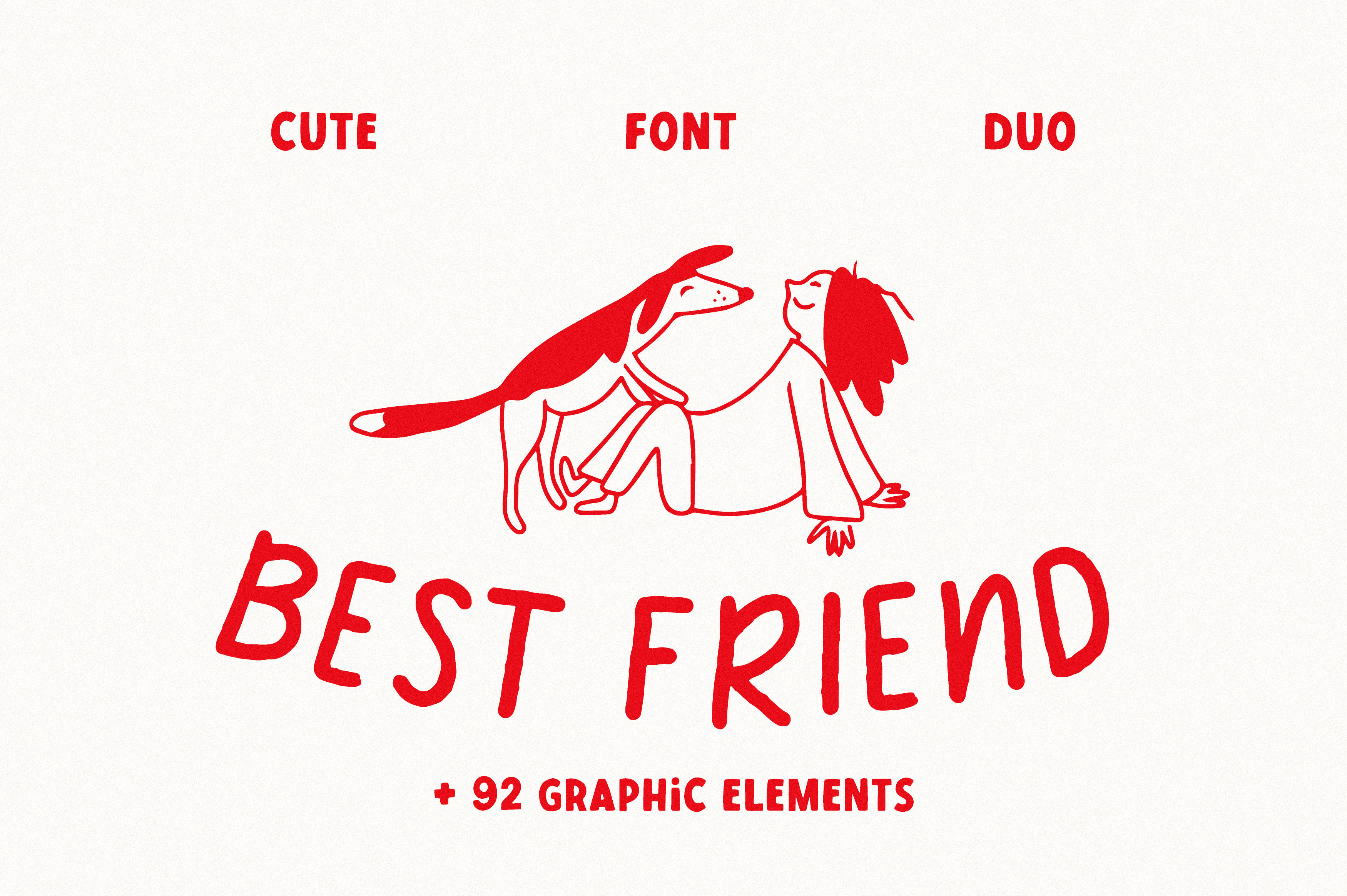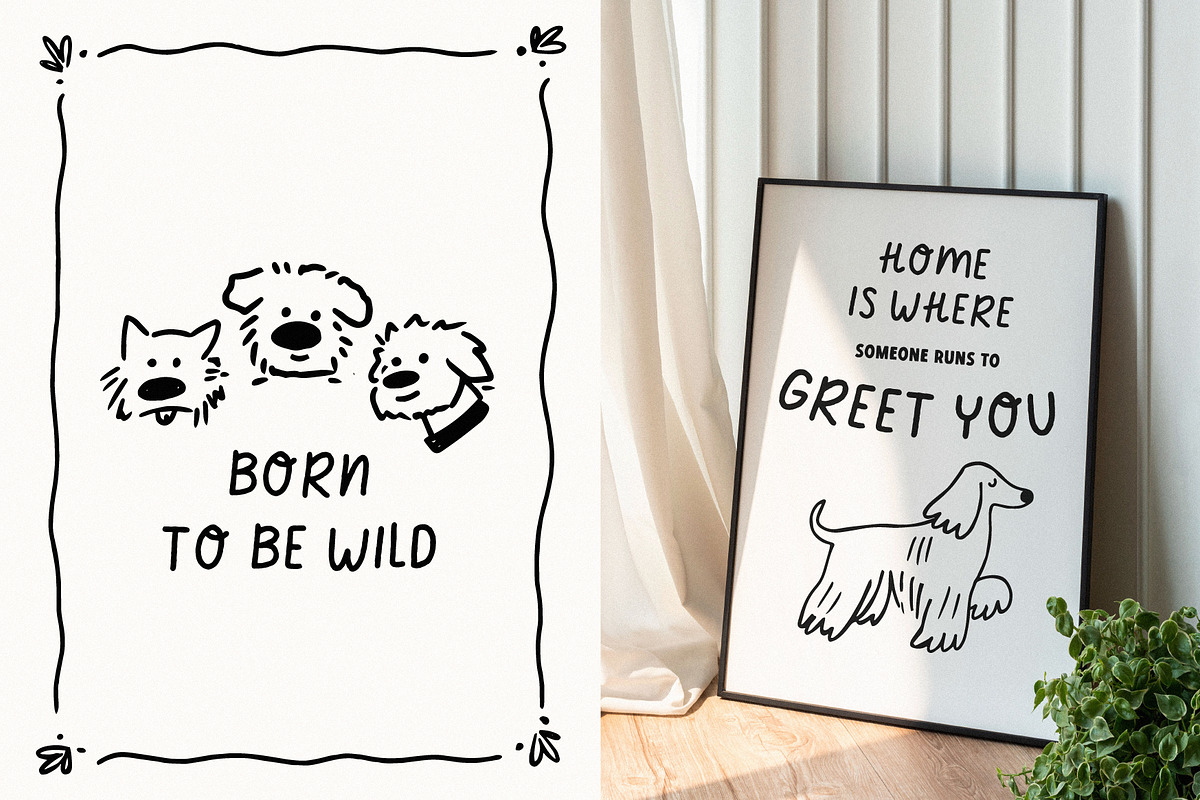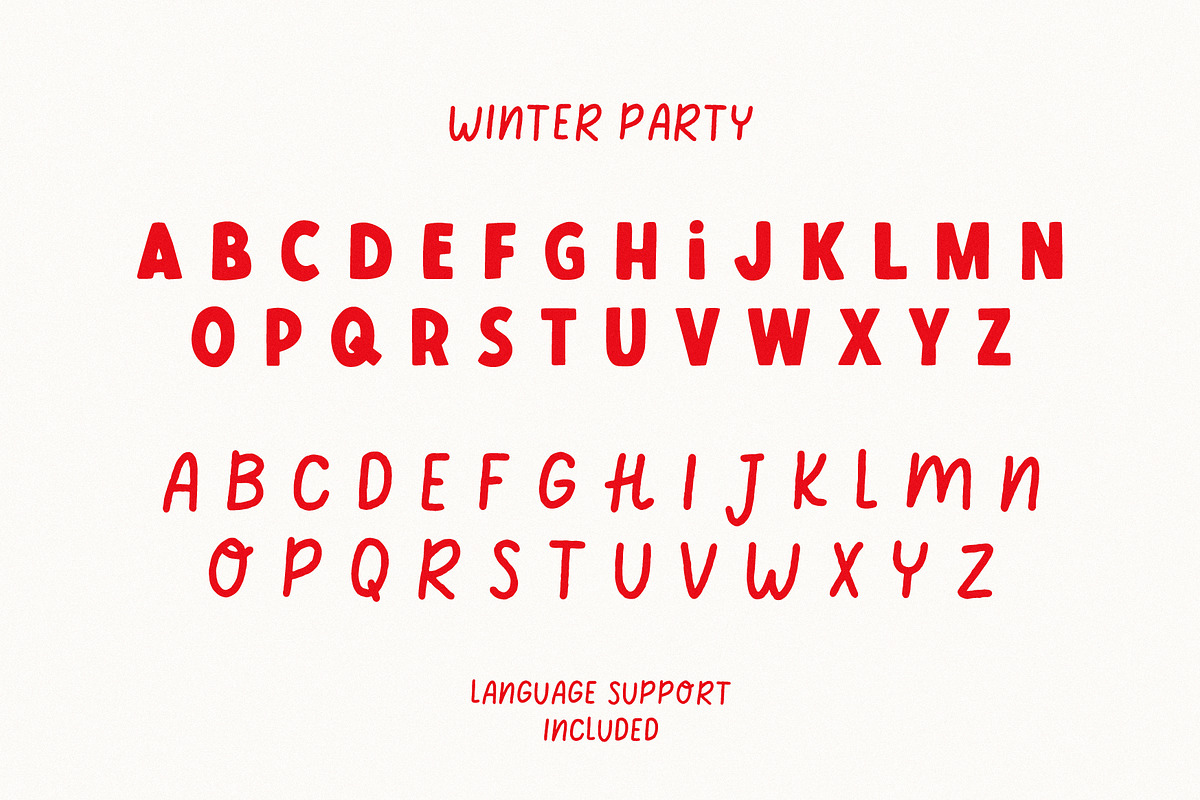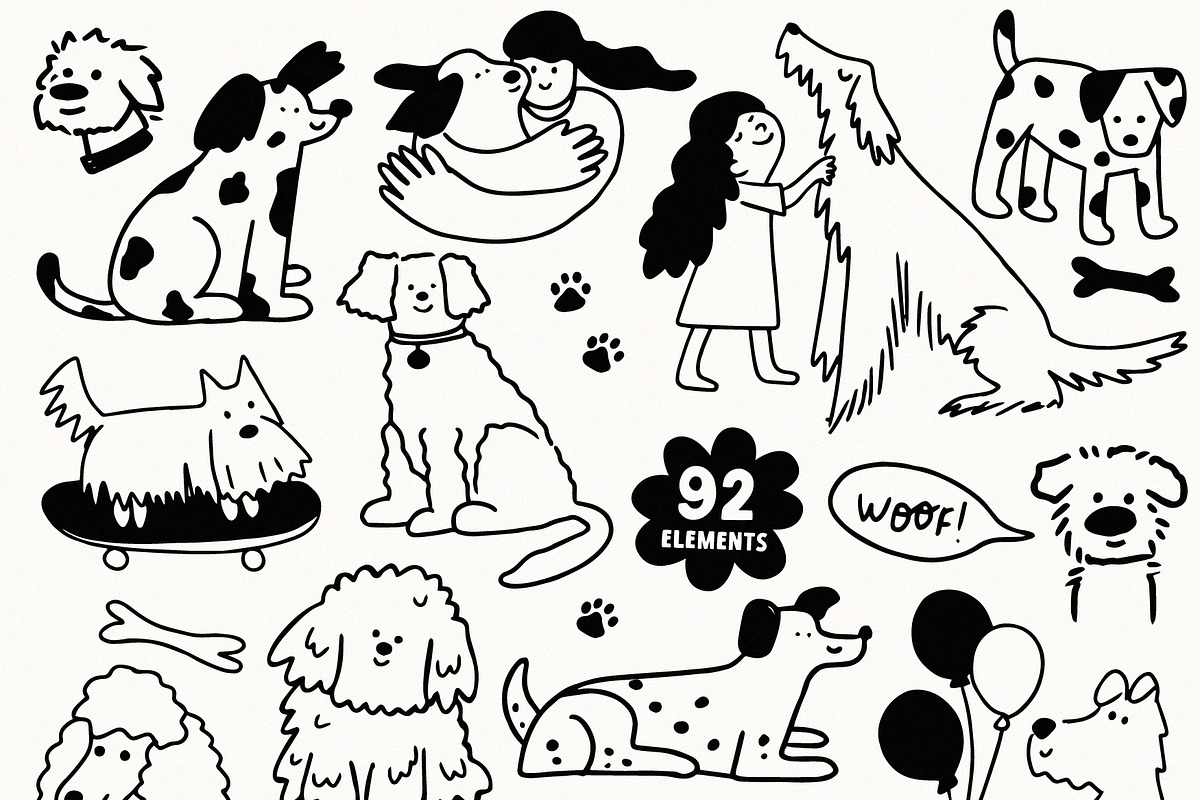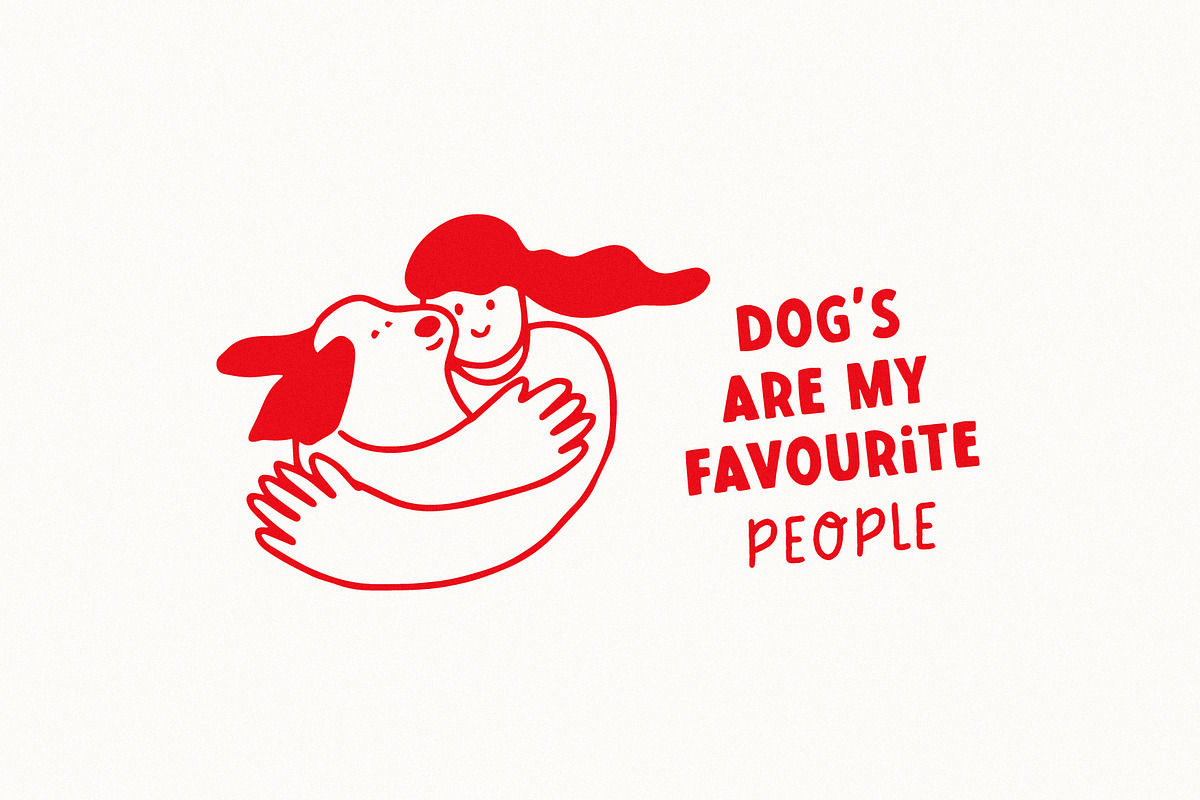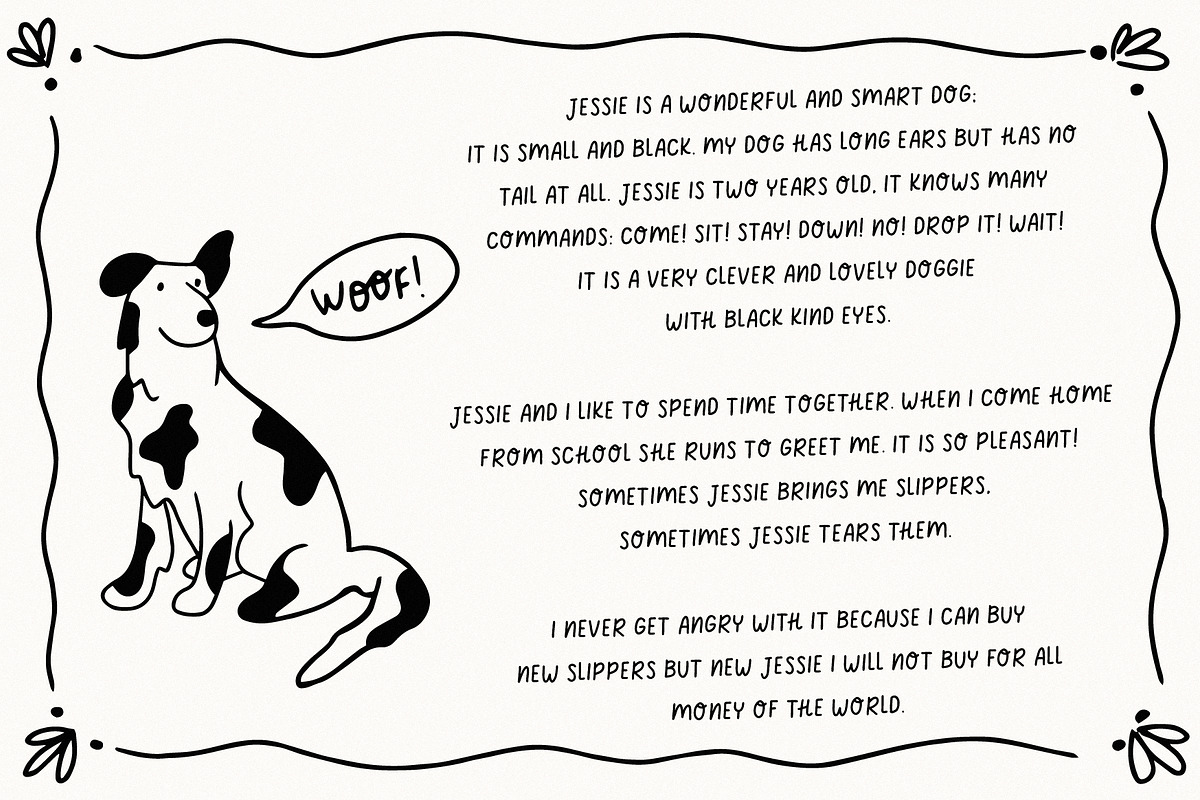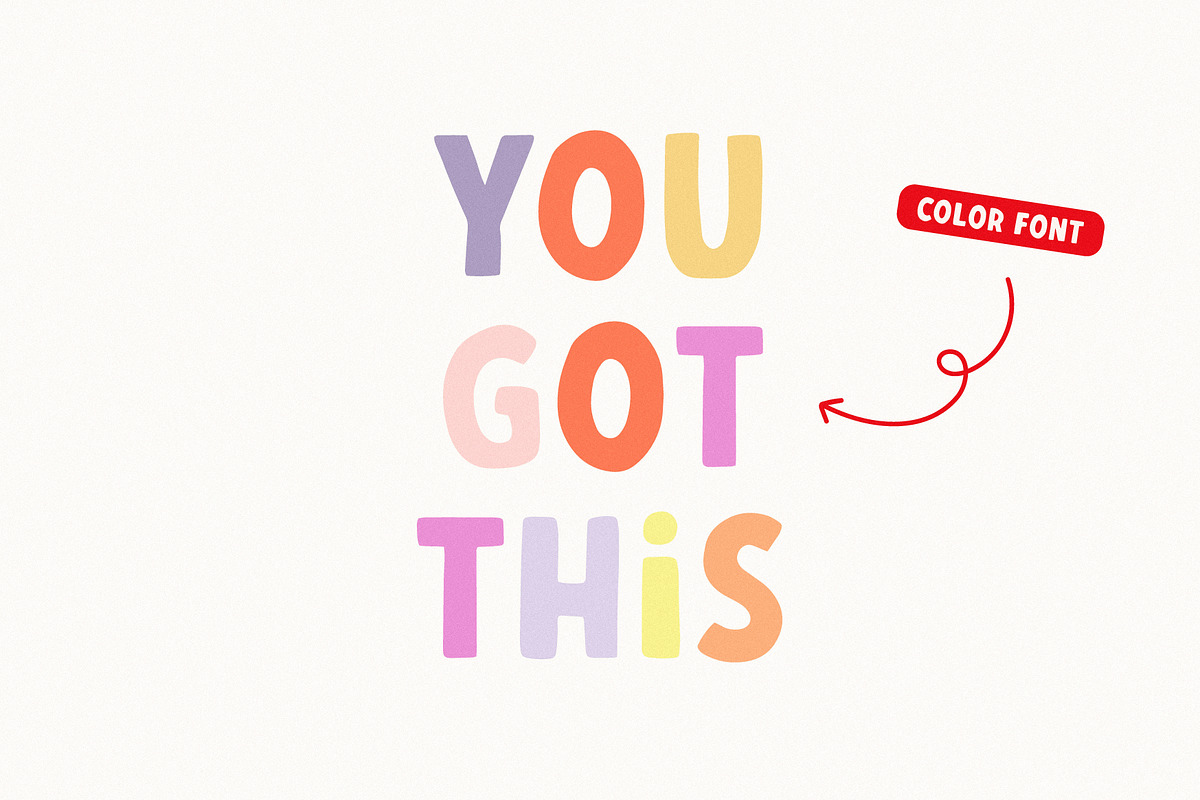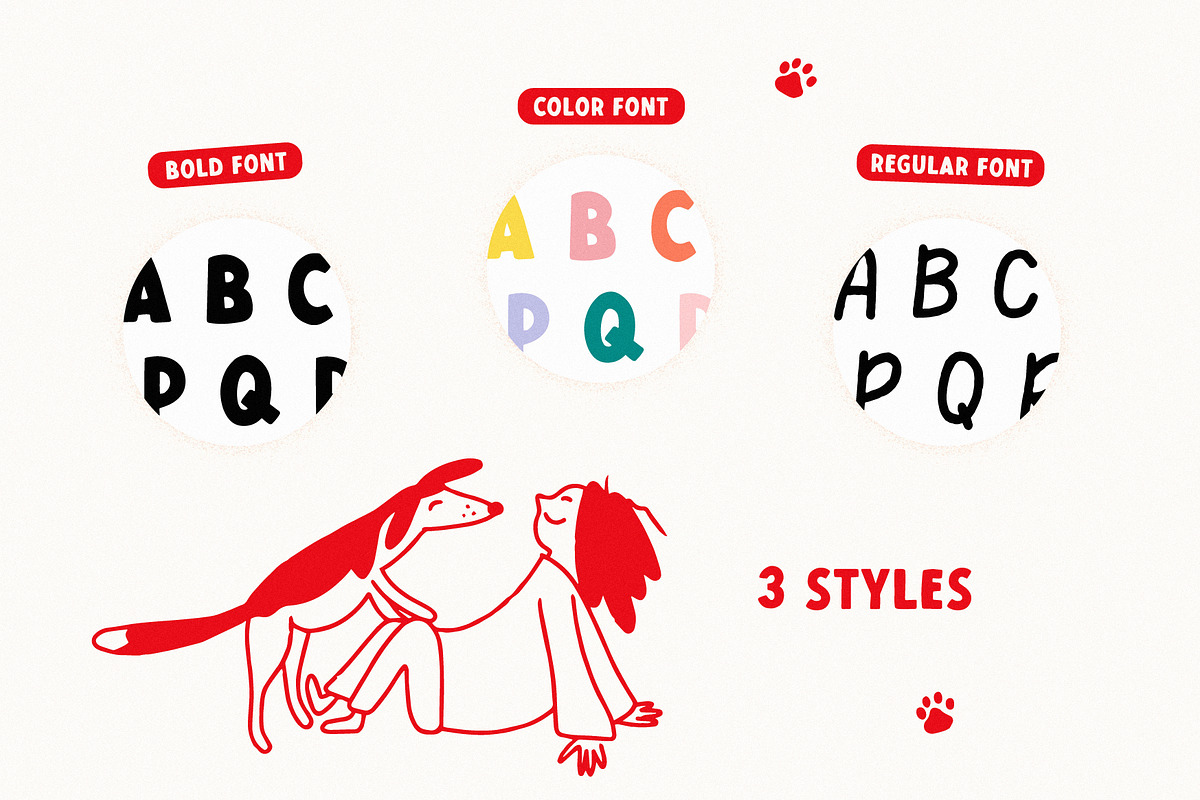
Best friend | Cute font duo
Best friend - a super fun and playful duo typeface. It is perfect for headings, flyer, greeting cards, product packaging, book cover, printed quotes, logotype, apparel design, album covers, etc.